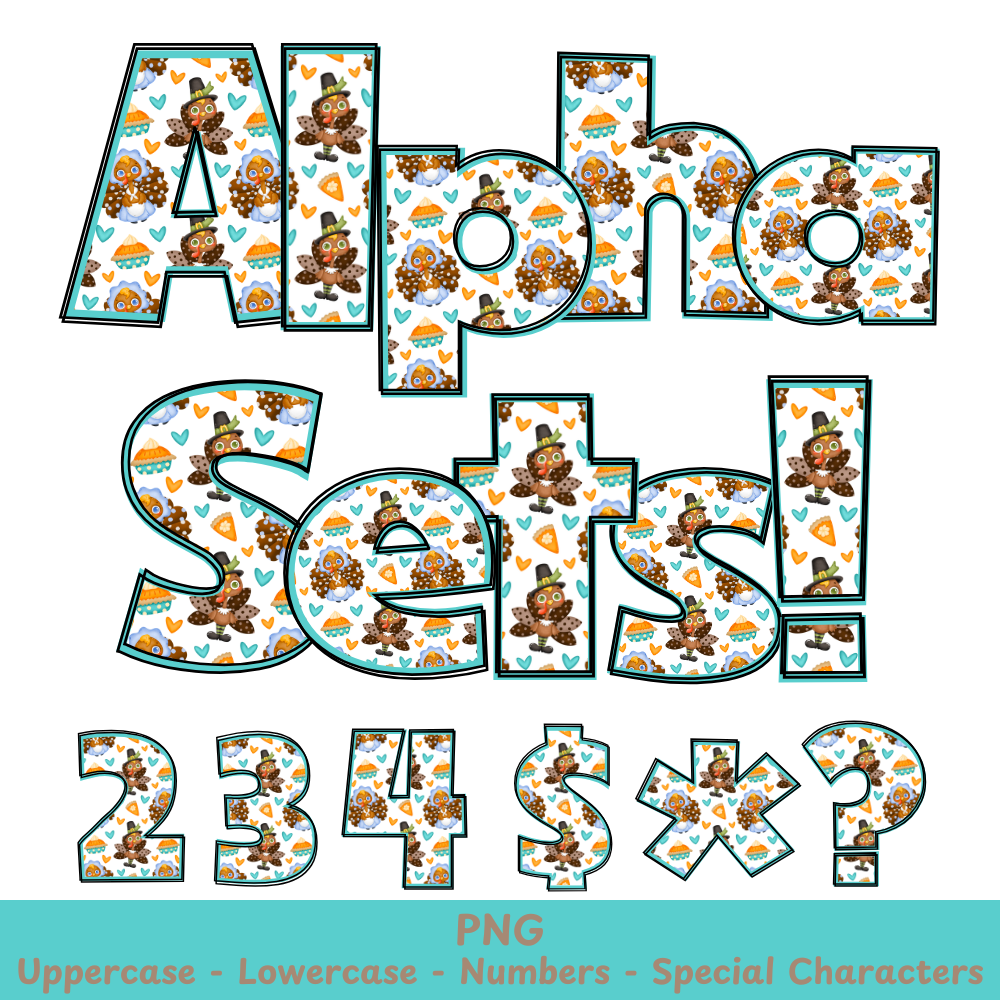
Thanksgiving Turkey PNG Font
Thanksgiving Turkey Alpha Set PNG Font Pack
Enhance your crafts and designs with our Thanksgiving Turkey PNG Font. Perfect for sublimation and other projects, this font adds a festive touch to your work. Our high-quality font is sure to impress and elevate your creations. Get creative this holiday season with our Thanksgiving Turkey font.